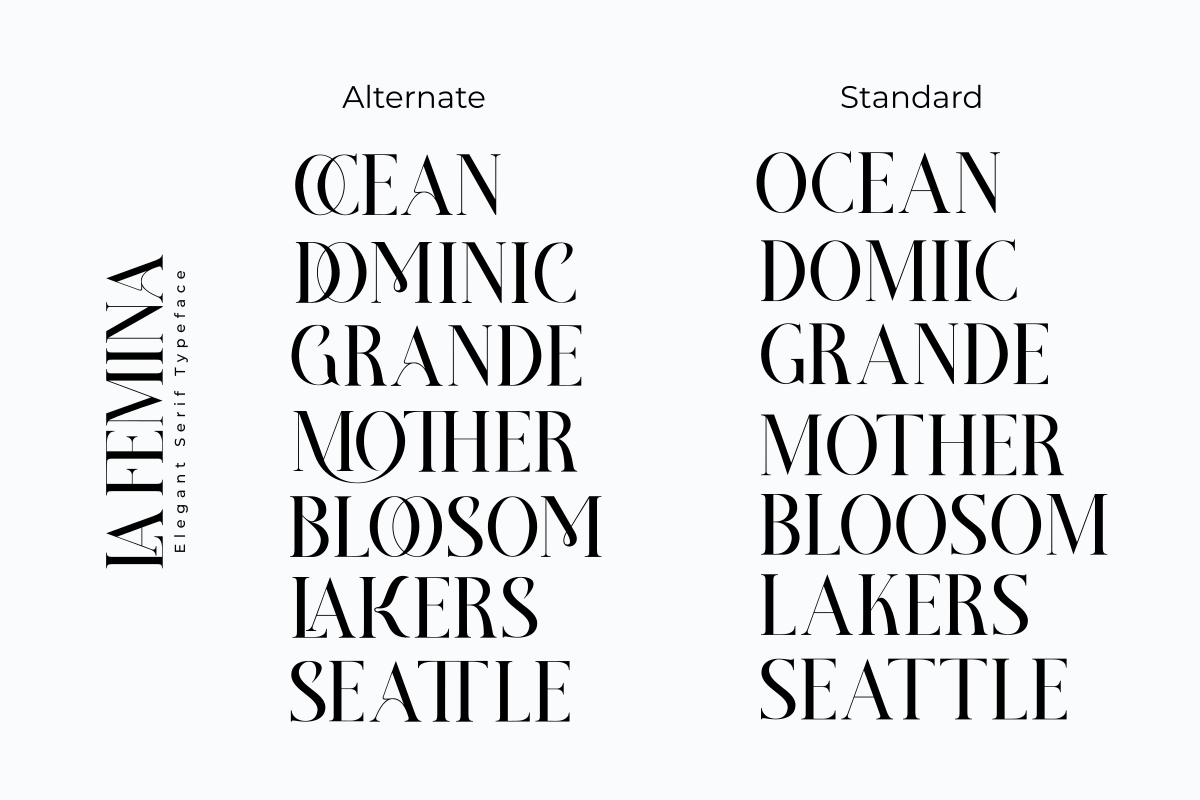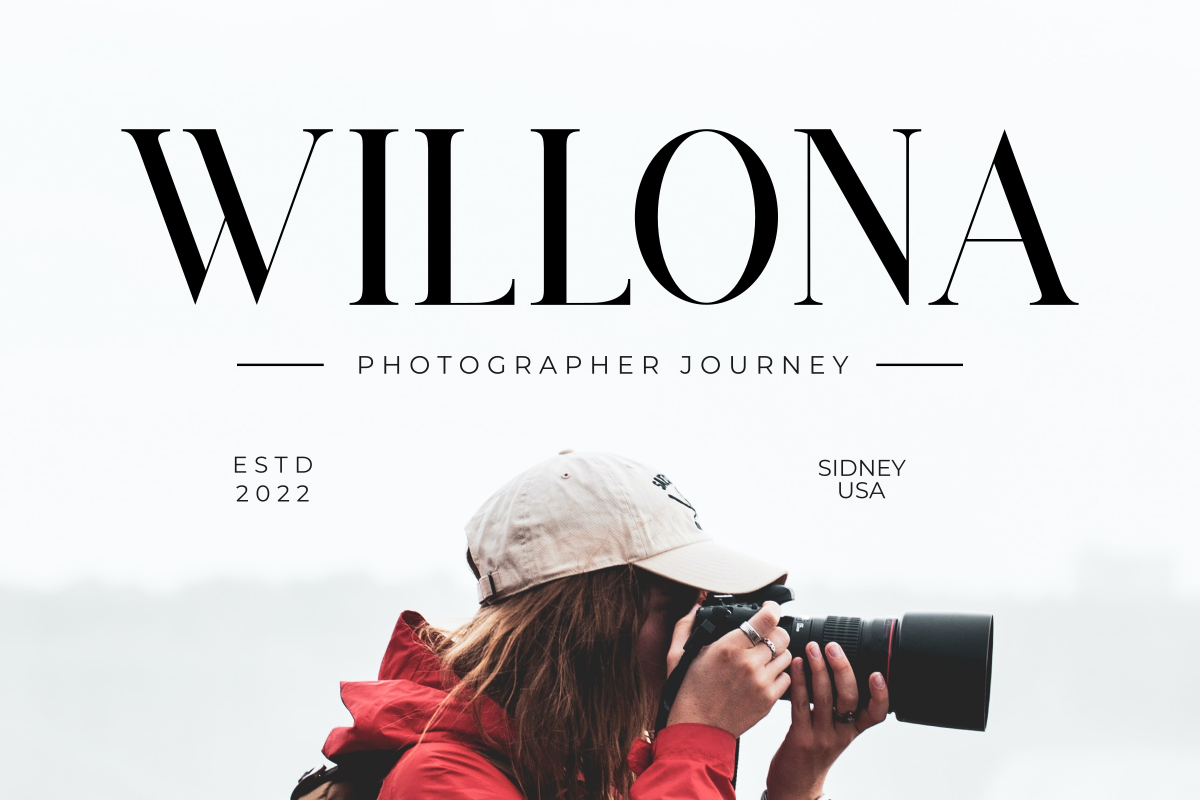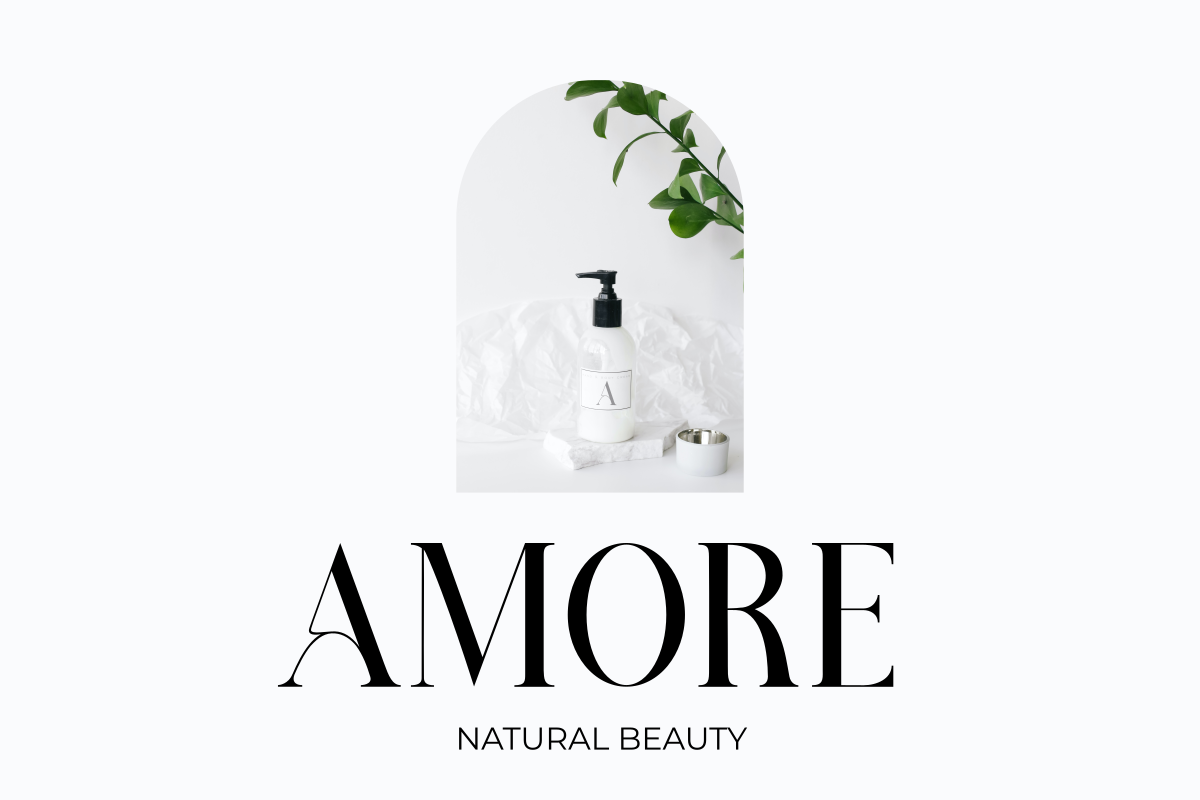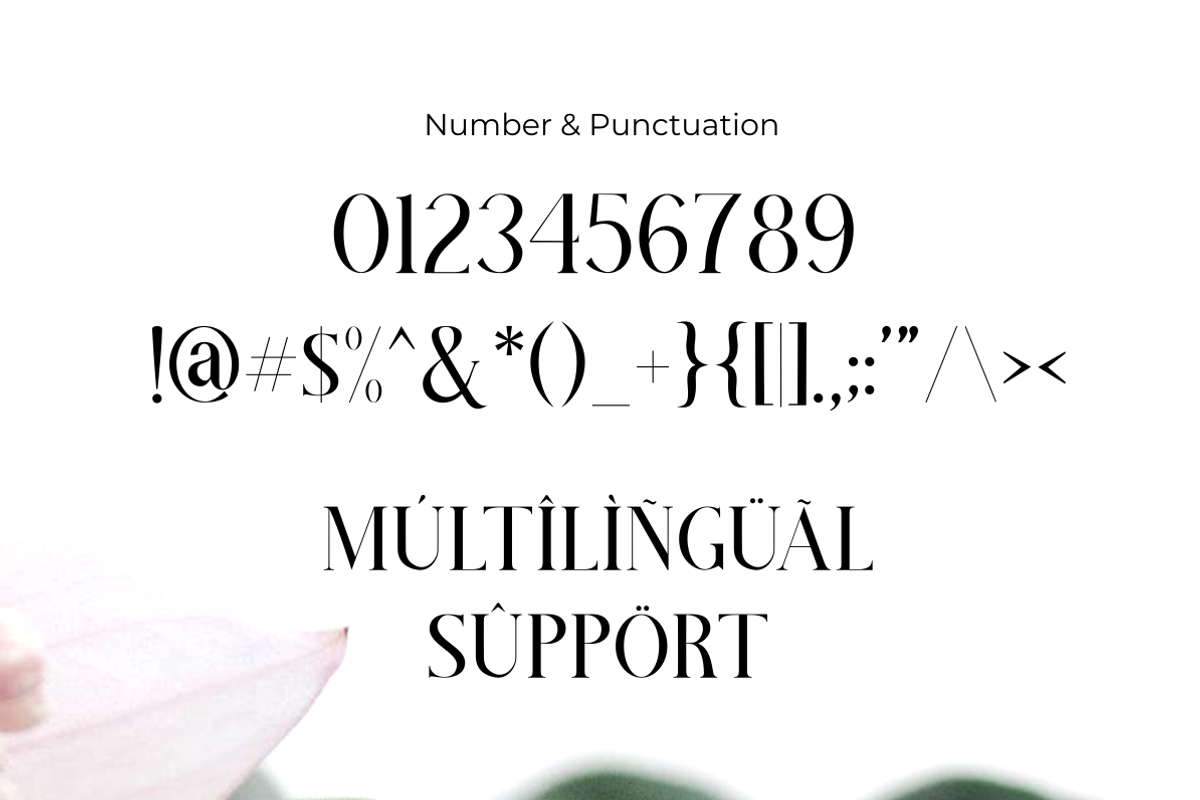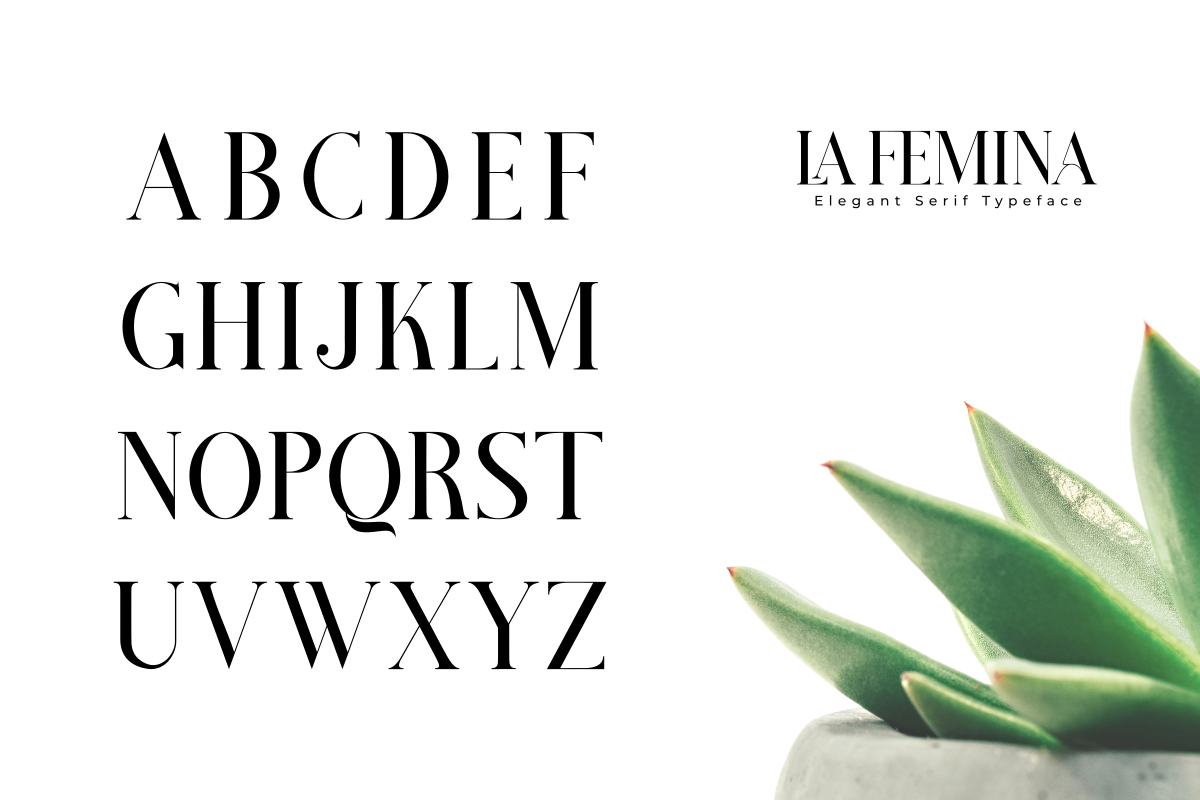
La Femina
La Femina is an elegant serif font filled with luxury, showcasing perfection in every letter. It can elevate your design projects with a touch of opulence, perfect for digital projects, logo design, clothing branding, product packaging, or stylish text overlays on any background.